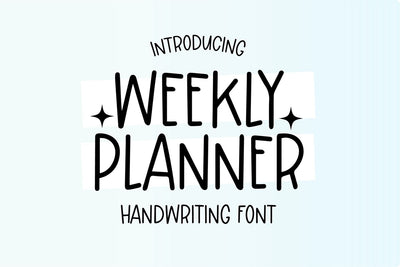
Weekly Planner Handwriting Font
"Weekly Planner" handwriting font.
Weekly Planner is a simple and cute handwriting font that is perfect for social media or goodnotes or digital planning. Use it for branding, crafts for decor, invitations, and more! This font includes all caps glyphs, numbers, basic punctuation marks.